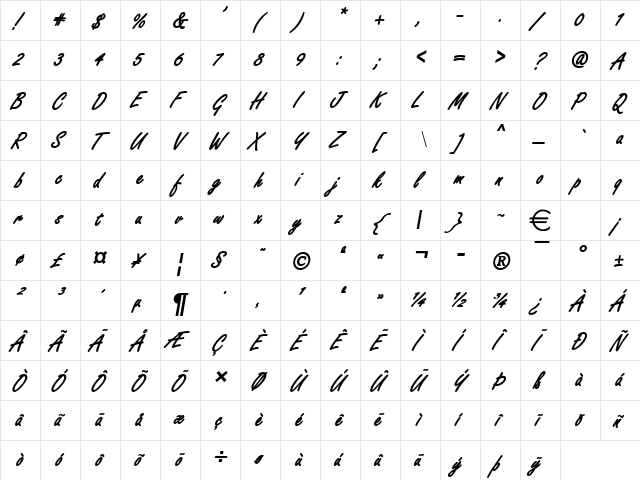
FreezeD BoldItalic
Design Context for FreezeD Typeface
FreezeD is a composed and adaptable typeface that performs quietly and consistently across a wide range of design contexts. The dynamic lean of this cut emphasises speed and emphasis in any layout. The heavy weight commands attention and anchors typographic hierarchies.
Pro Tip: Try FreezeD for annotation and caption copy alongside an upright companion — the contrast in angle creates a dynamic but ordered typographic system.